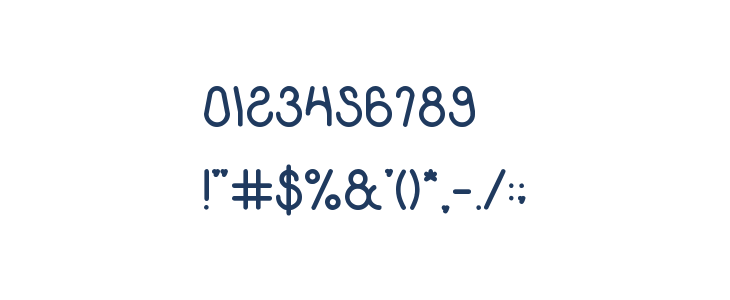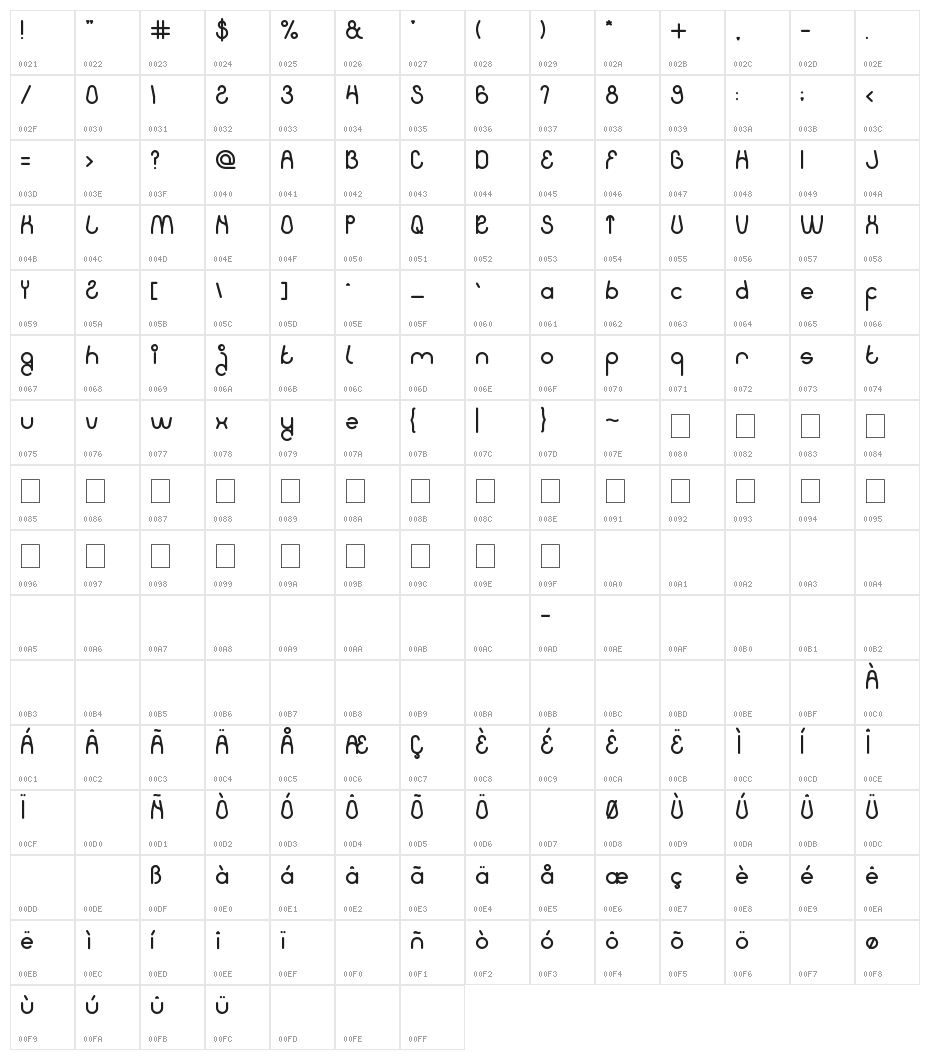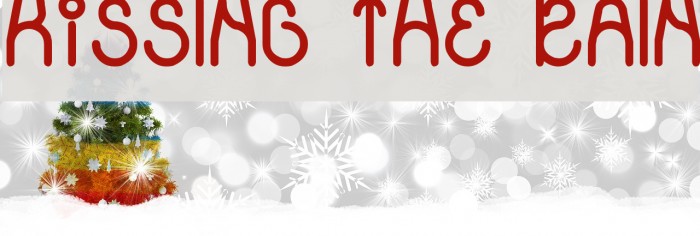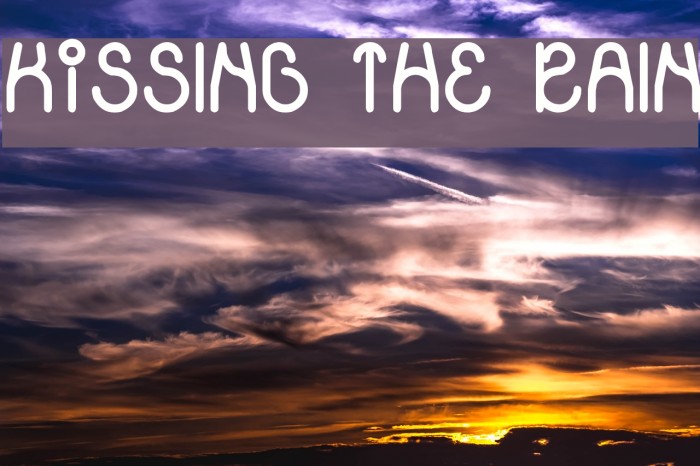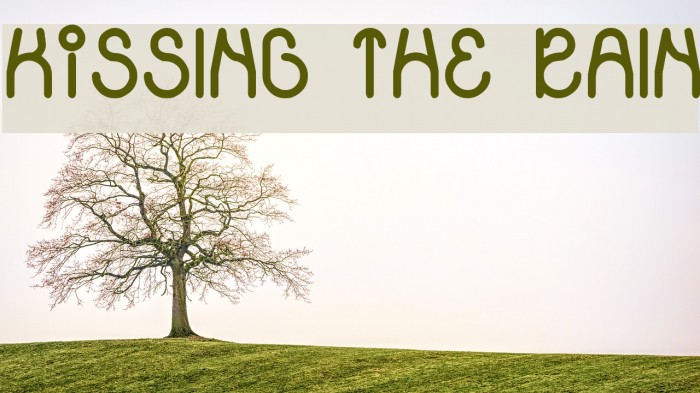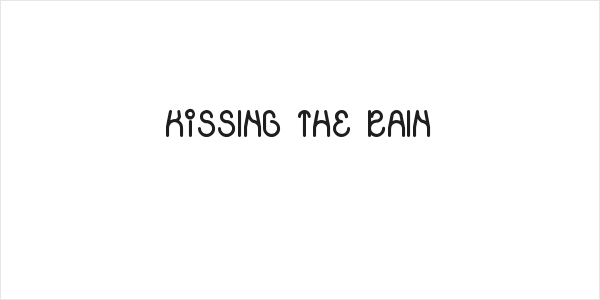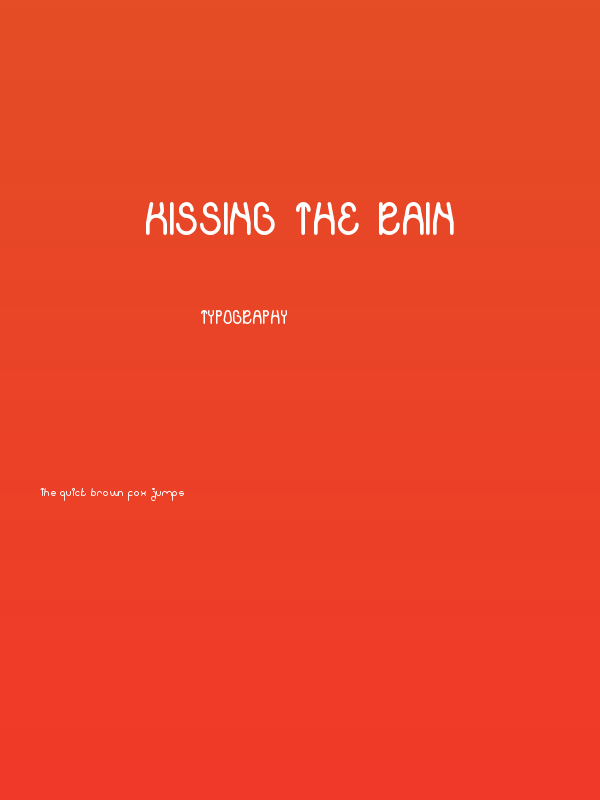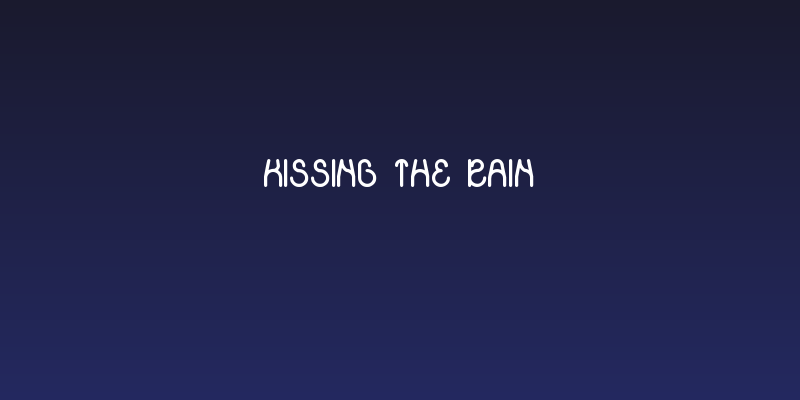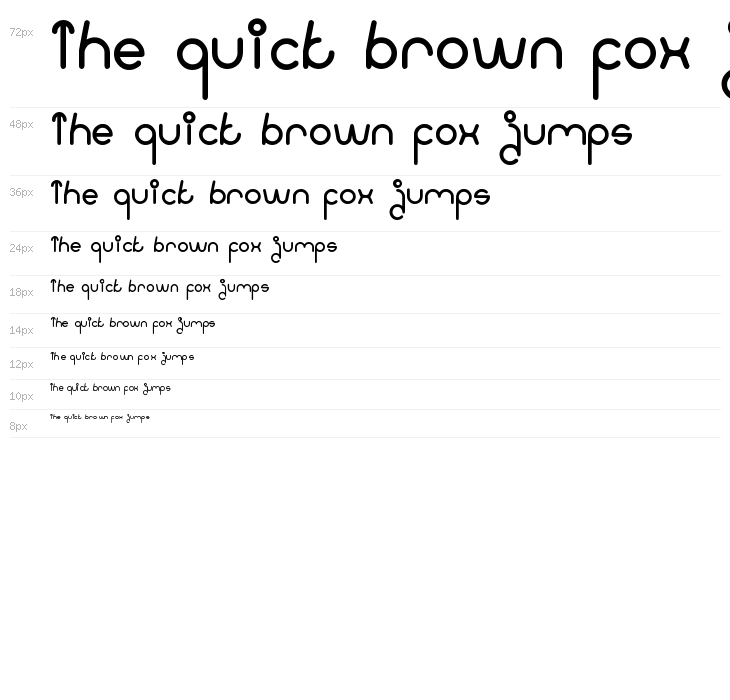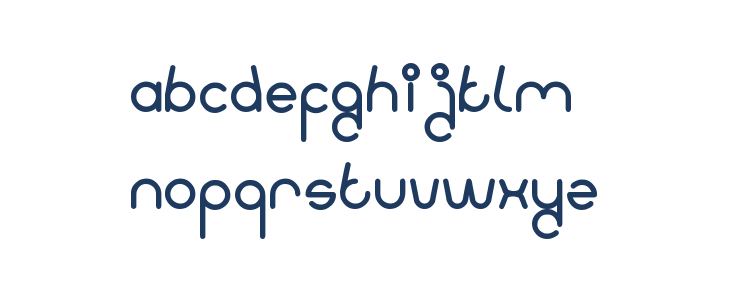
KiSSING THE RAIN Font
KiSSING THE RAIN Description
This playful and whimsical font features rounded, looping strokes that create a sense of movement and fluidity. The characters are evenly spaced with a consistent stroke width, giving it a clean and approachable appearance. Its unique style is characterized by the rounded terminals and slightly exaggerated curves, making it stand out in any design. The font maintains a uniform height across both uppercase and lowercase letters, contributing to its harmonious look. It is versatile enough to be used in various creative projects, adding a touch of fun and personality.
Overall StylePlayful
Proposed ProjectsIdeal for children's books, playful branding, greeting cards, and creative posters.